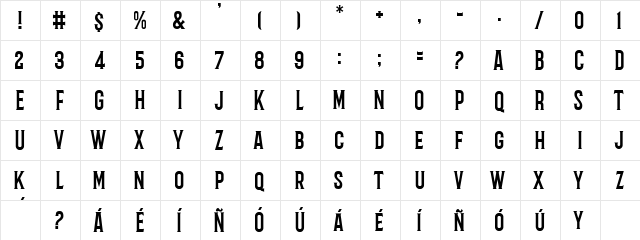
Barbaro Roman
Design Context for Barbaro Typeface
Barbaro takes a measured approach to typography — its balanced proportions and neutral character make it a reliable workhorse for both digital and print work.